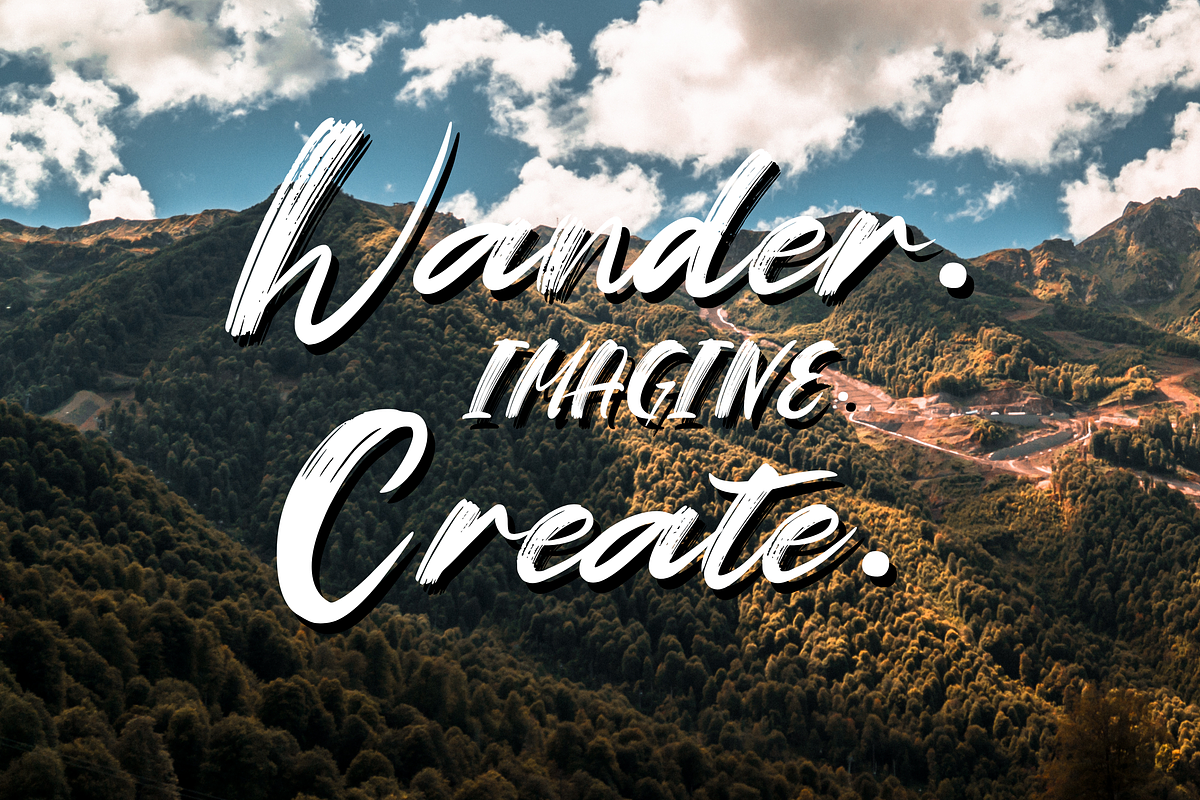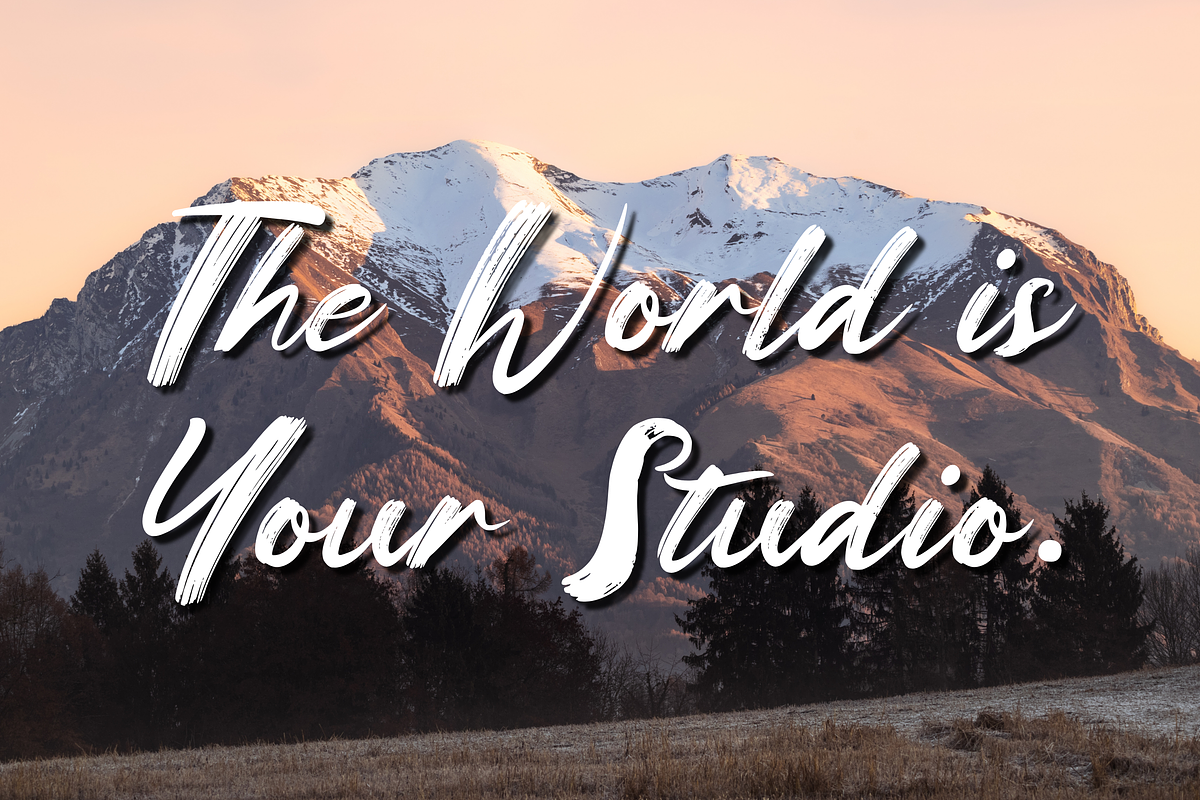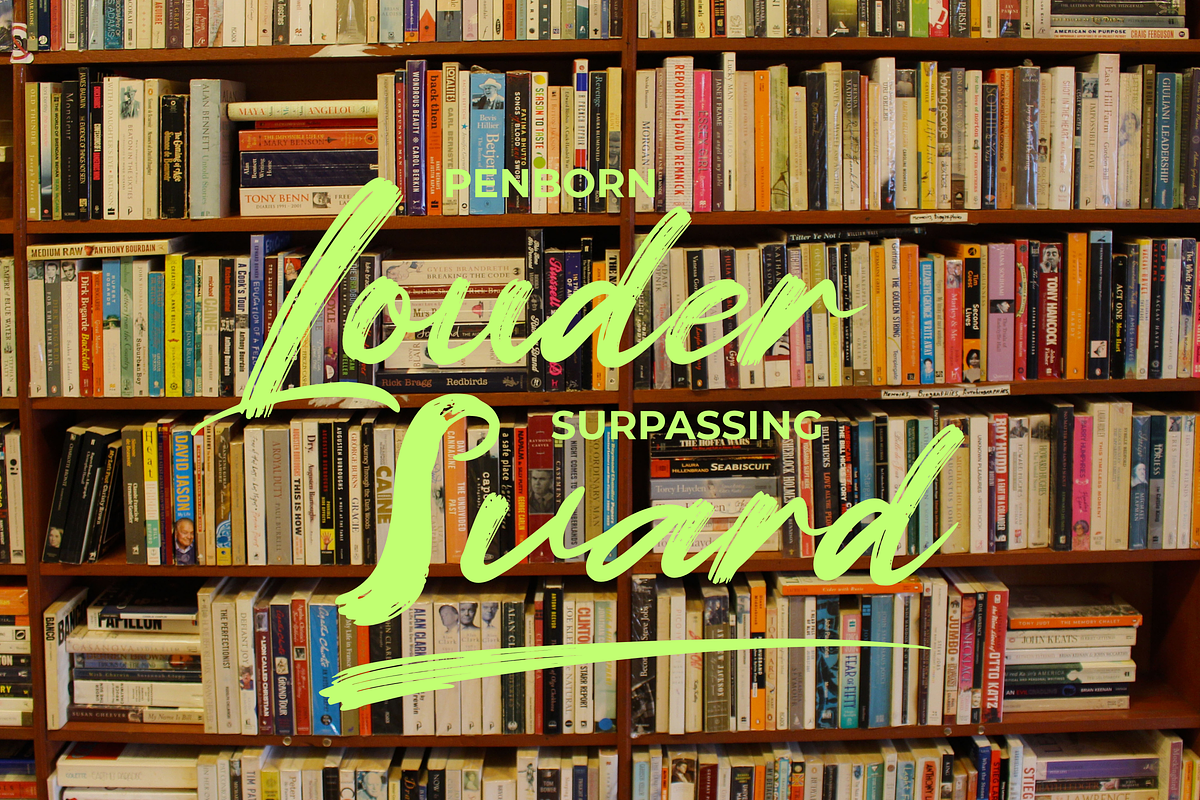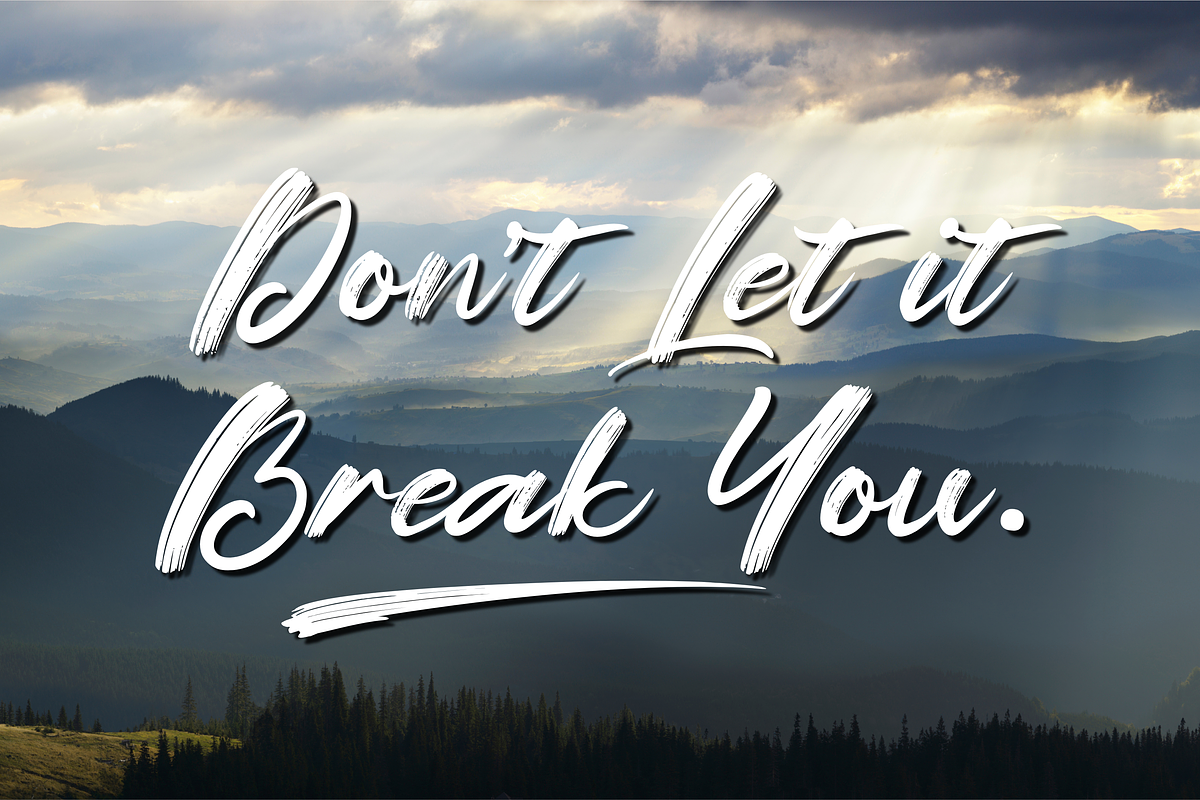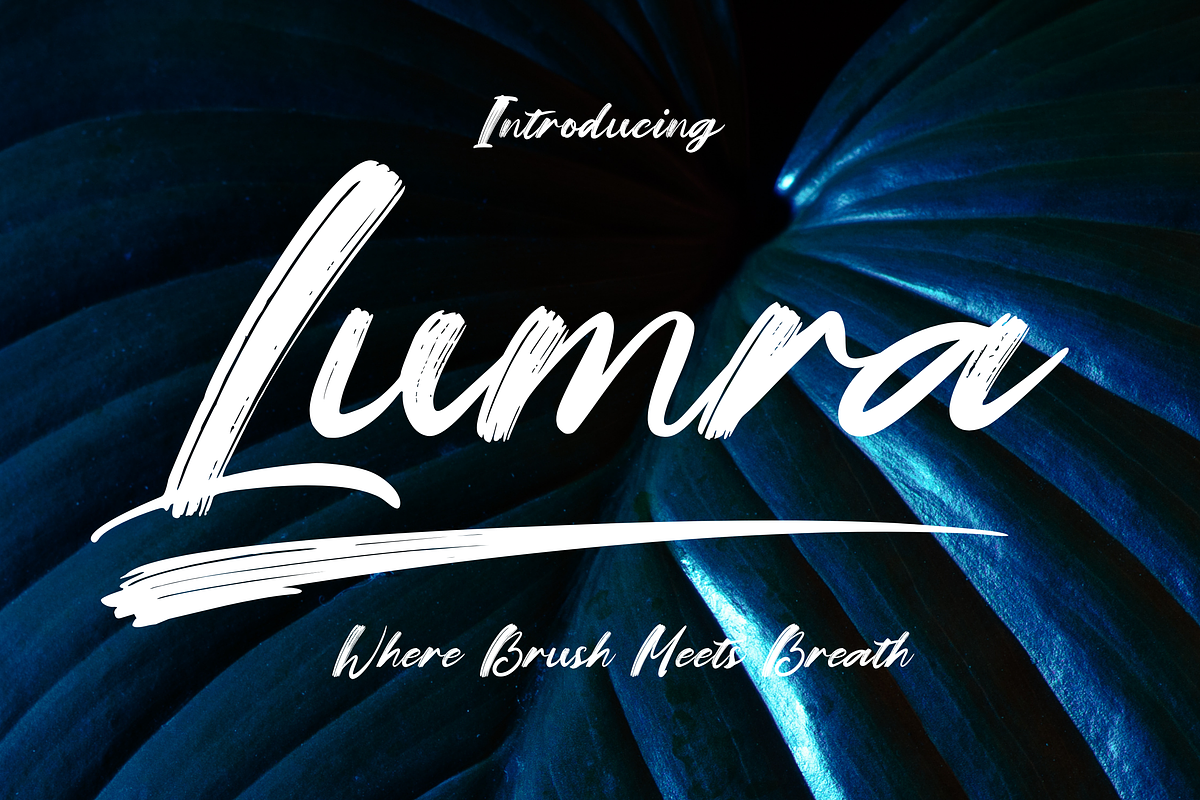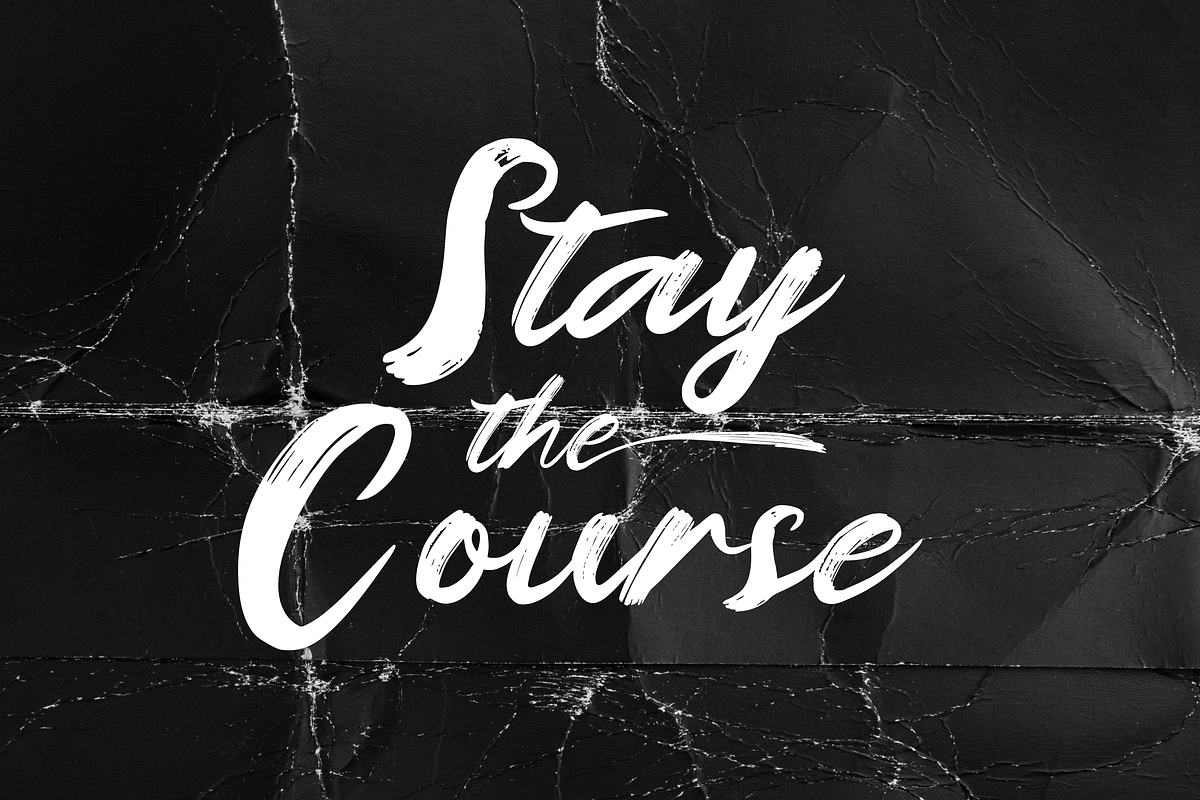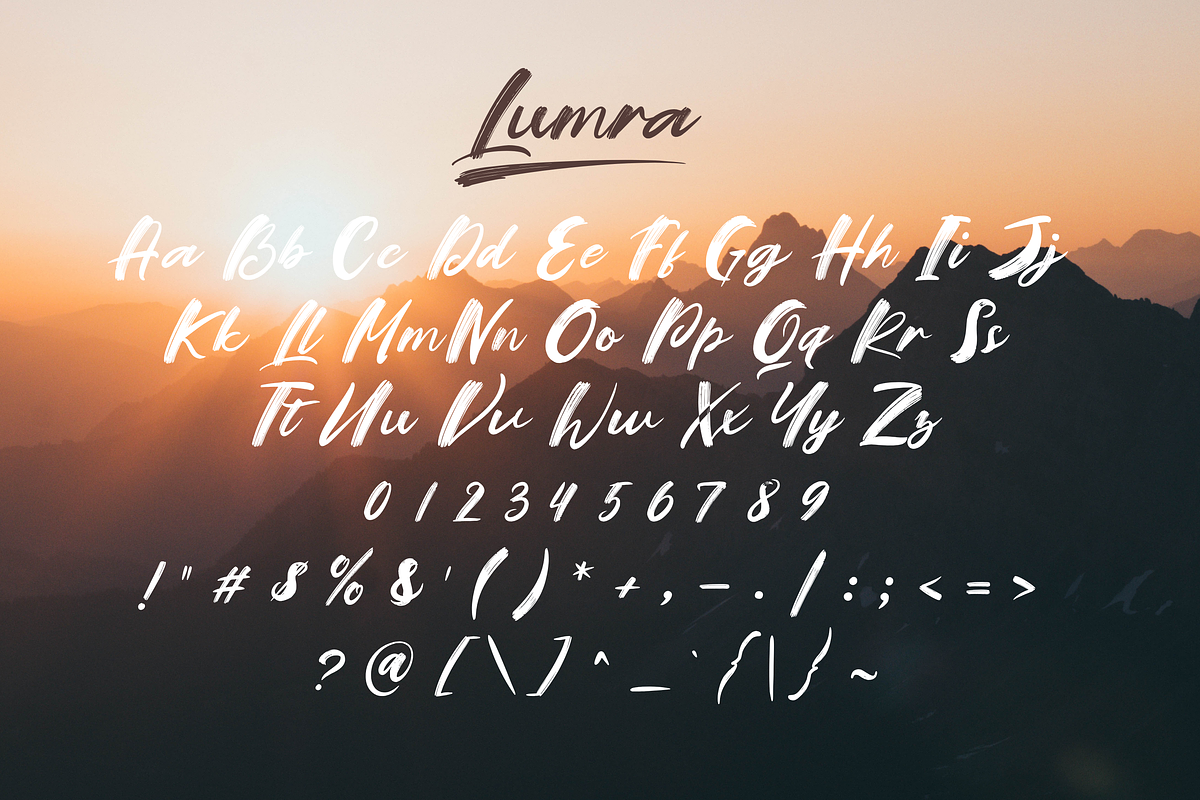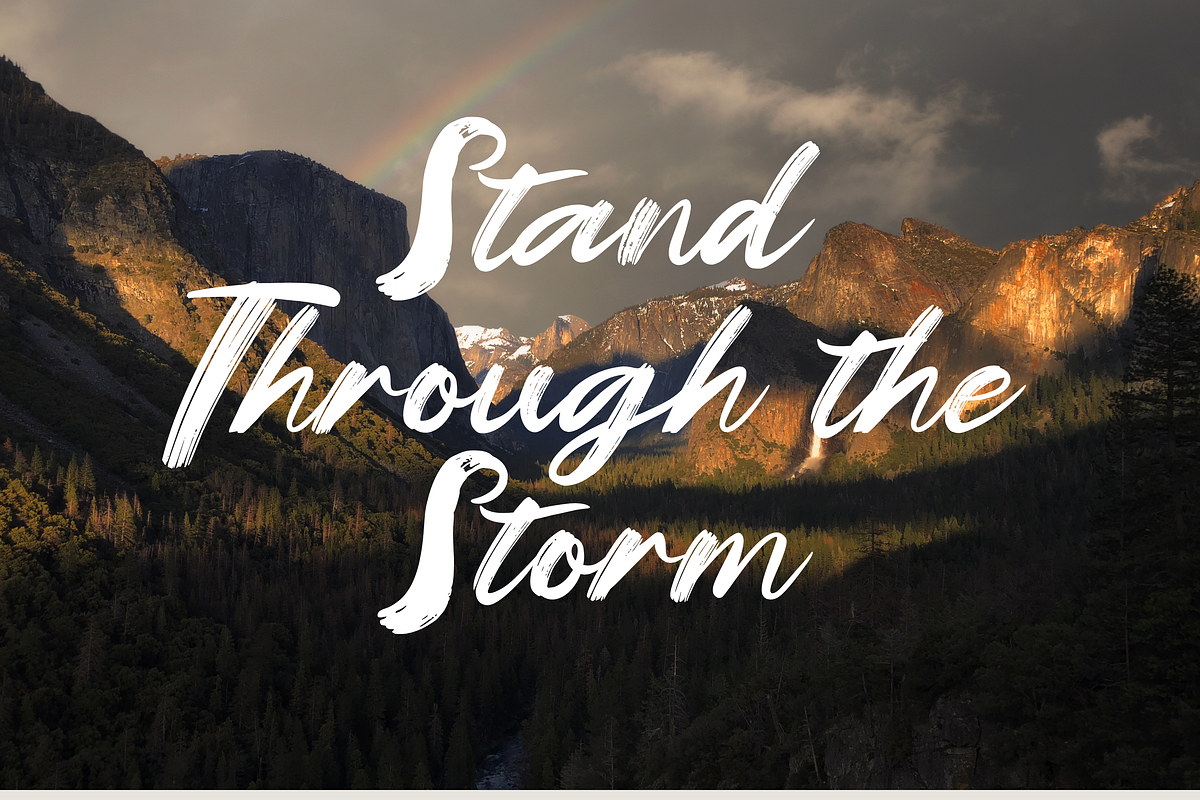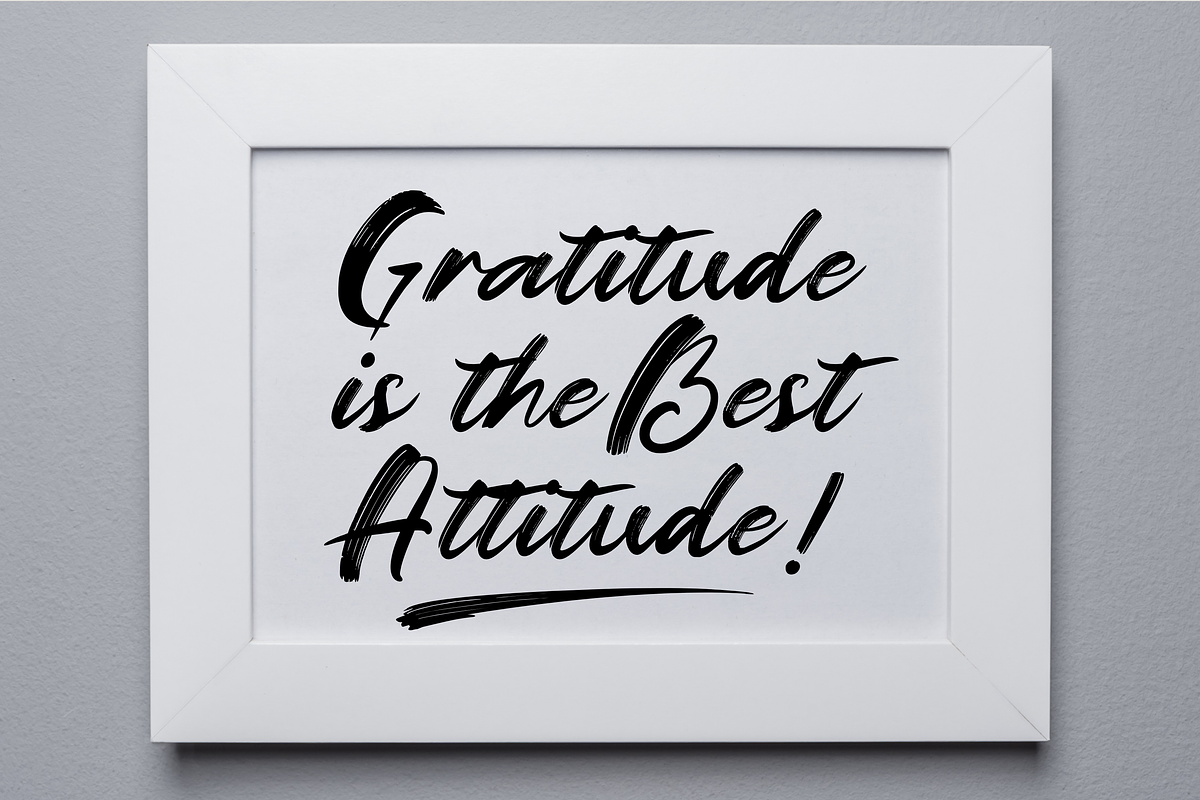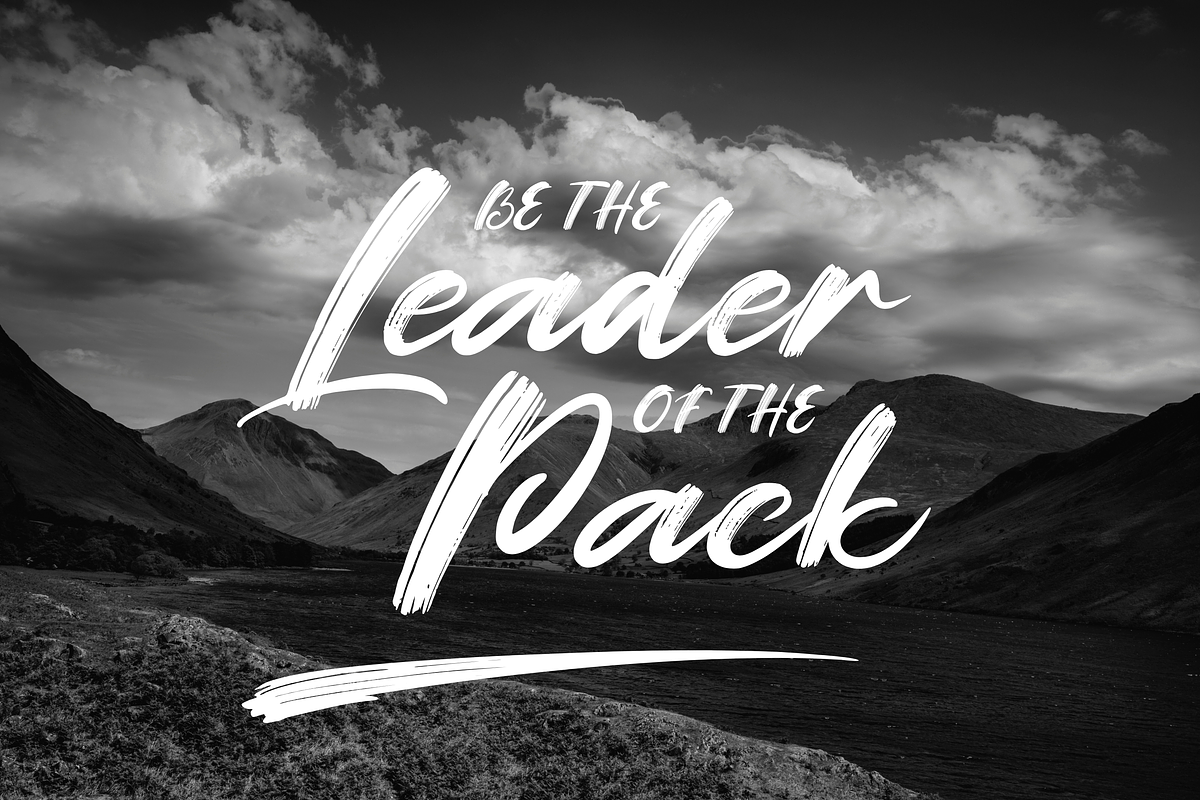
Lumra
Lumra Bring your words to life with Lumra, a bold and expressive brush script filled with energy, flow, and just the right touch of imperfection. Hand-crafted for designs that need heart, movement, and attitude.
Perfect for logos, quotes, invitations, packaging, headers, and more — Lumra gives your typography a personal, artistic edge.
What’s Inside: Lumra Regular – Script brush font with uppercase & lowercase letters, punctuation, numerals, and multilingual support.
Design with feeling — bold or soft, wild or gentle — Lumra is your creative companion. Thanks for your support. Your ideas make this font come alive. ✨